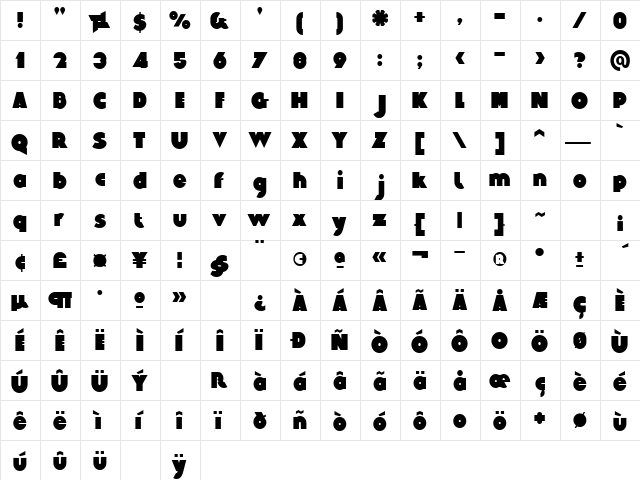
Eygptian Regular
Design Context for Eygptian Typeface
Eygptian is a composed and adaptable typeface that performs quietly and consistently across a wide range of design contexts.